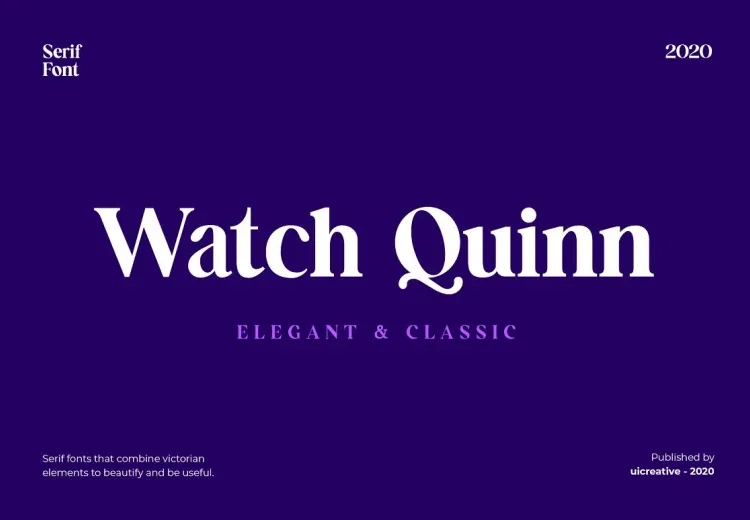
Watch Quinn Font
Watch Quinn is an elegant serif font that combines sophistication with a modern touch, making it an ideal choice for high-end and creative design projects.
Key Features:
• Refined Design: Crafted with elegant serifs and a contemporary aesthetic, Watch Quinn exudes a sense of class and style, ideal for upscale projects.
• Versatility: This typeface works beautifully in various contexts, from brand logos to editorial titles, offering a timeless appeal for a broad range of designs.
• Clean Readability: The carefully designed letterforms make it suitable for both display and body text, ensuring clear and stylish presentation.
Ideal Applications:
• Logos and Branding: Perfect for luxury brands seeking a sophisticated look, from high-fashion clothing lines to premium product labels.
• Stationery and Signature Designs: Adds a personal yet polished touch to stationery, personal branding, and professional signatures.
• Wedding Invitations and Event Stationery: Ideal for elegant invitations and event materials that require a classic, refined typeface.
• Magazine and Book Covers: A great fit for editorial use, from magazine headlines to book covers, where a modern serif font can elevate the visual impact.
• Web and Packaging Headers: Works excellently for website headers, product labels, and packaging, adding a touch of class and sophistication.
Why Watch Quinn Stands Out:
• Elegant & Contemporary: Balances traditional serif appeal with a fresh, modern edge that works across digital and print media.
• Timeless Versatility: Adaptable to both formal and creative settings, making it a go-to font for numerous design needs.